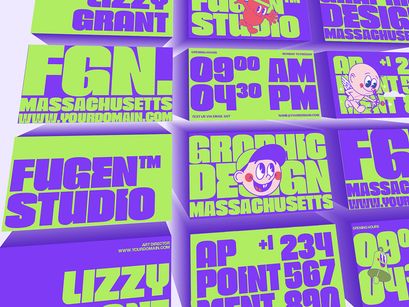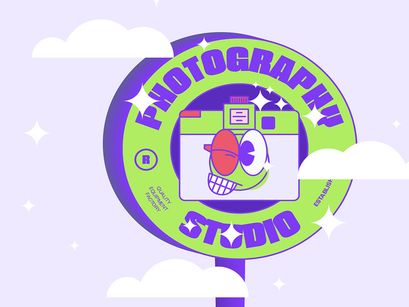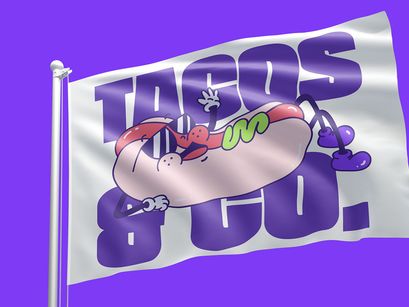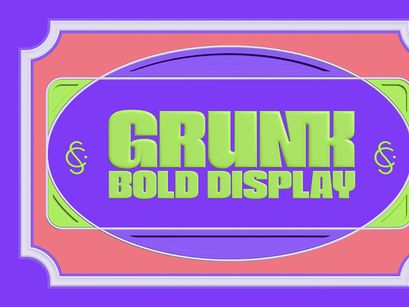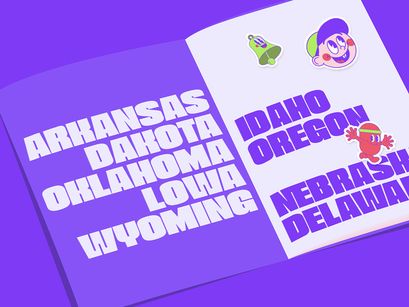
Grunk Bold Display Font
Grunk-DMO-Bold
Grunk Bold Display Font by Casloop (https://casloop.net/) is here! This font is great for editorial or display projects, even for print media. In this typeface, Casloop emphasizes some curved corners as a characteristic of the character. Casloop takes an approach to the legibility of this typeface on simple letterform, tight angles, and flexible line curves in each typeface.